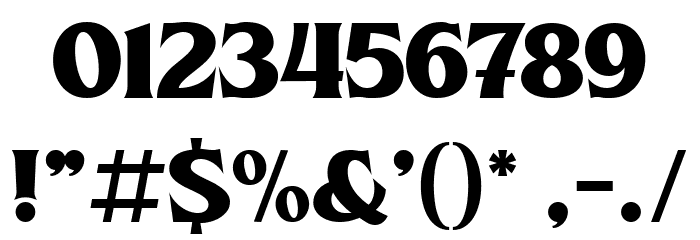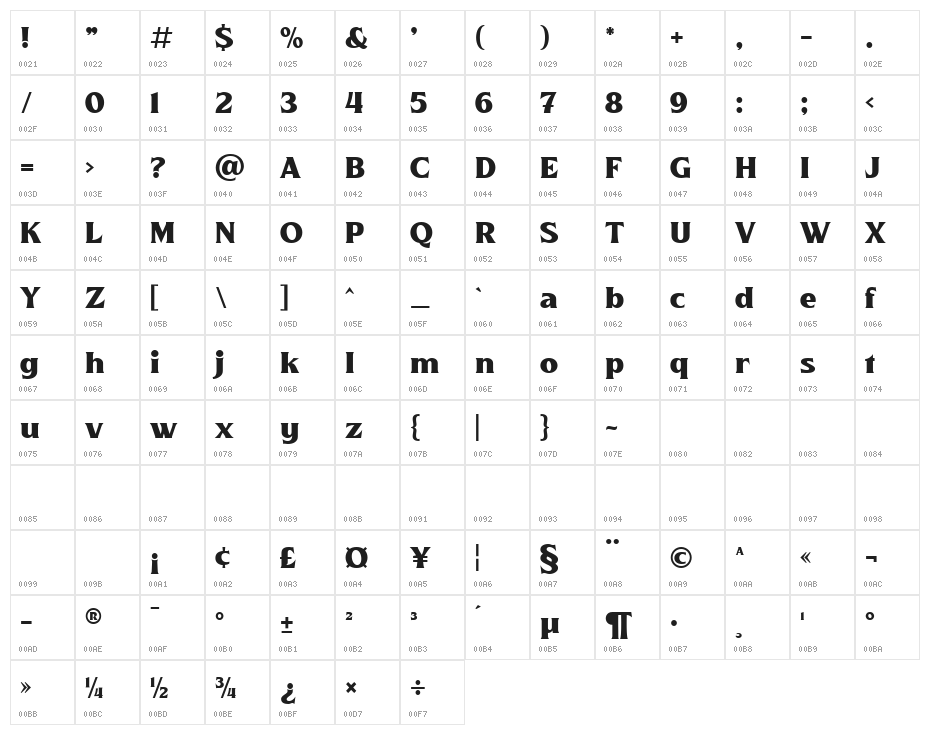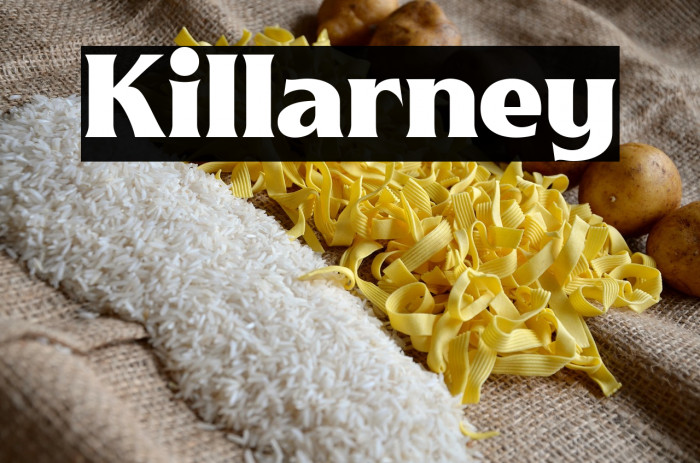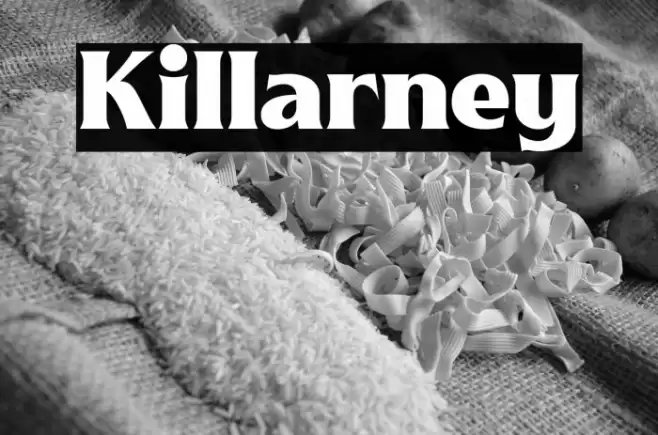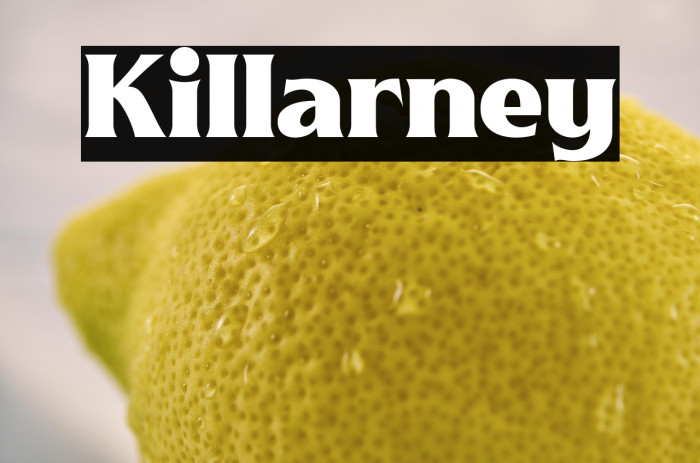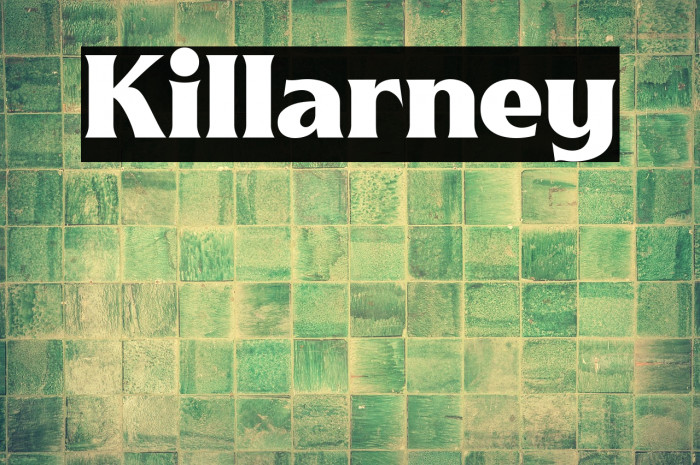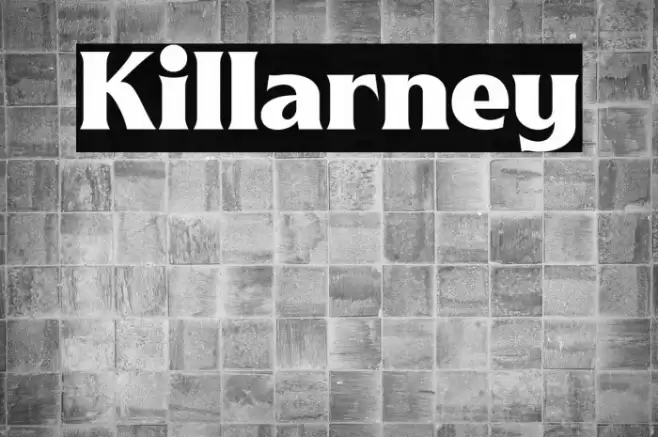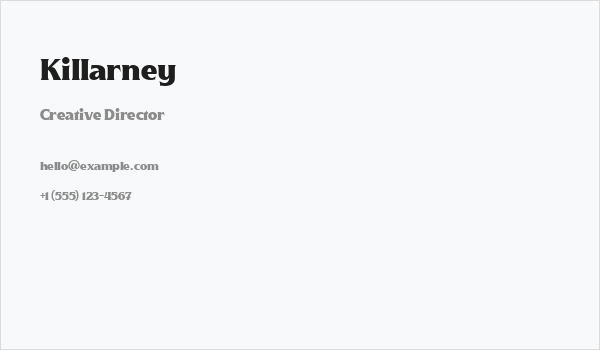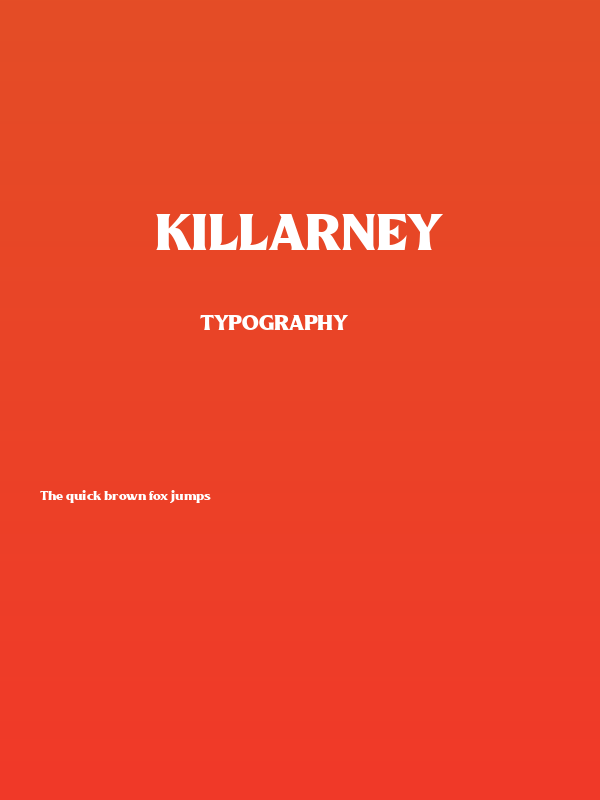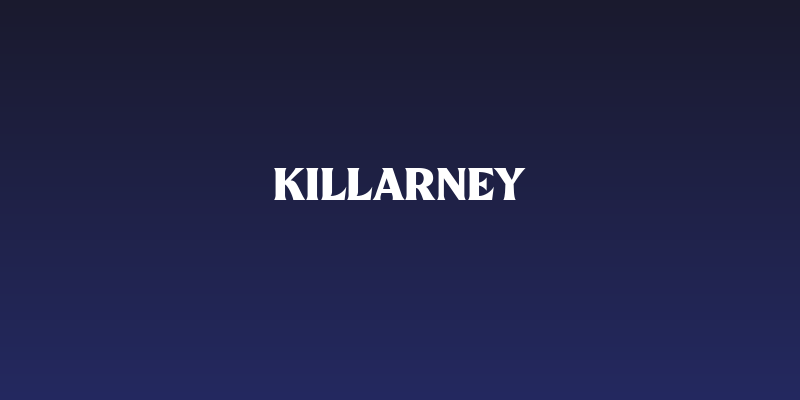
Killarney Font
Killarney Description
This font features a bold and dramatic style with strong, angular serifs and a distinct presence. The uppercase letters are robust and commanding, while the lowercase letters maintain a consistent weight and style, providing a harmonious balance. The numerals are equally bold, ensuring readability and impact. Special characters are designed with the same boldness, making them stand out. The overall design is reminiscent of classic serif fonts but with a modern twist, making it suitable for a variety of applications where a strong, authoritative look is desired.
| Proposed Projects | Ideal for headlines, posters, branding, and any project requiring a strong visual impact. |